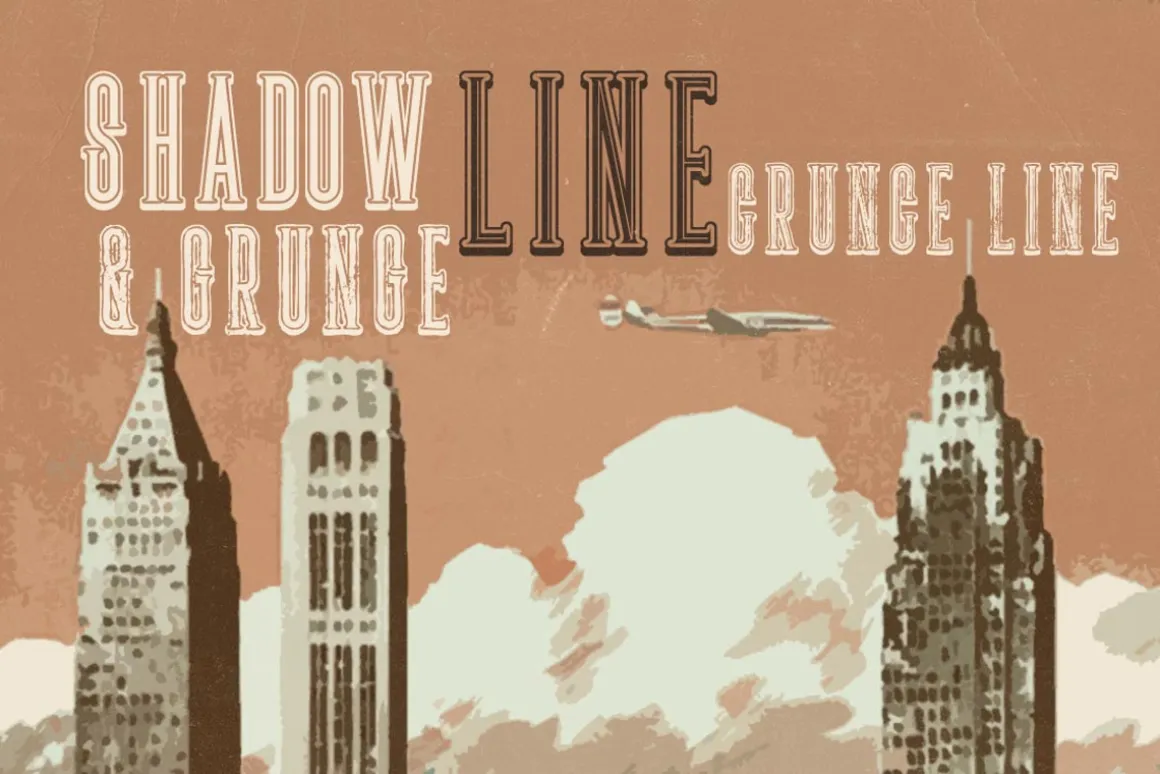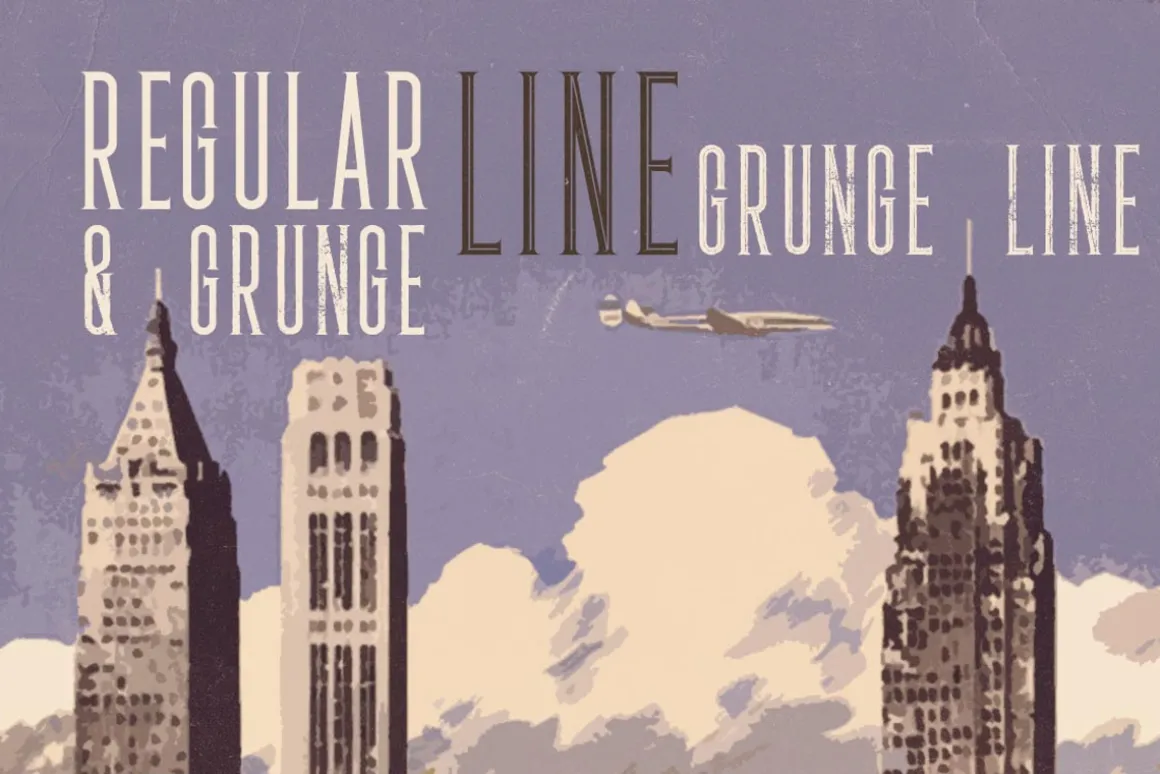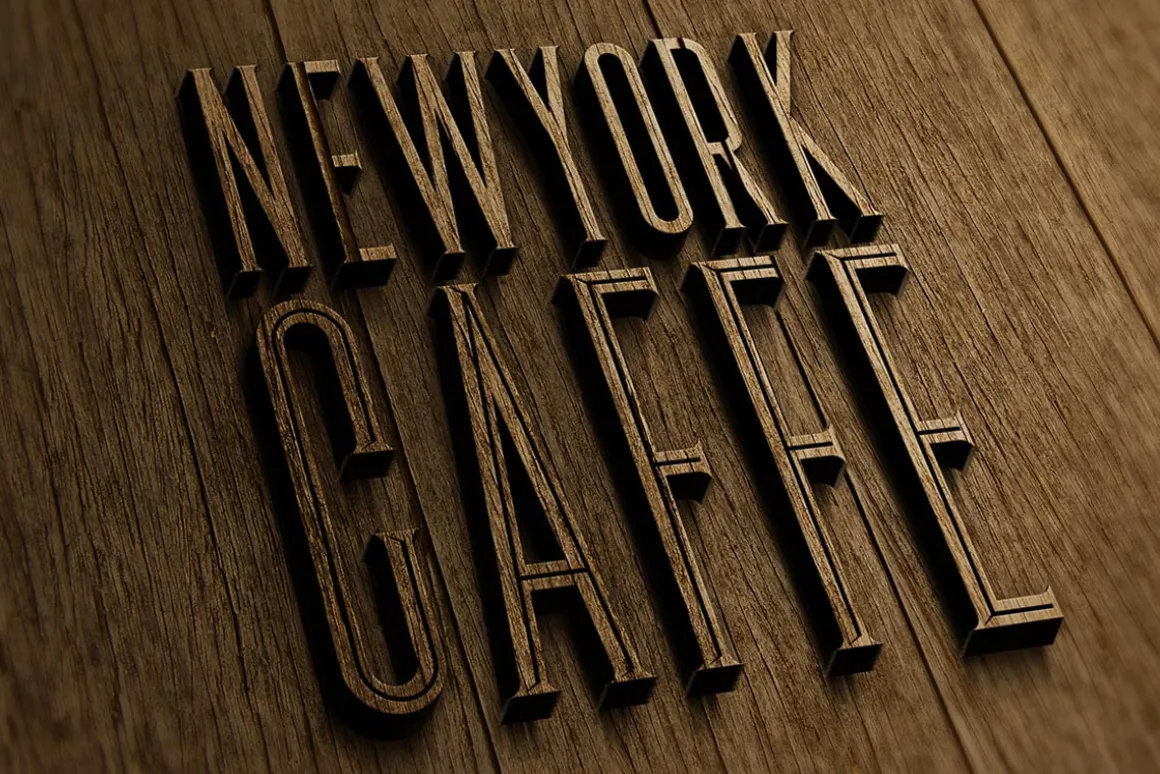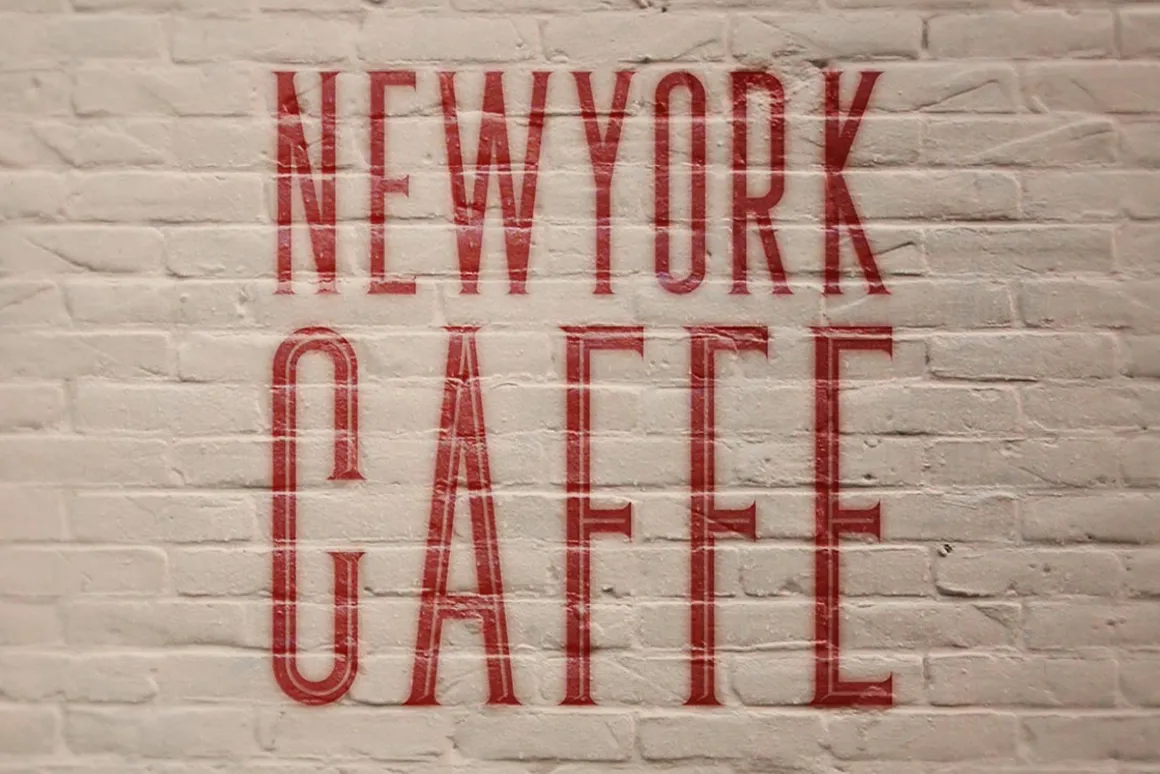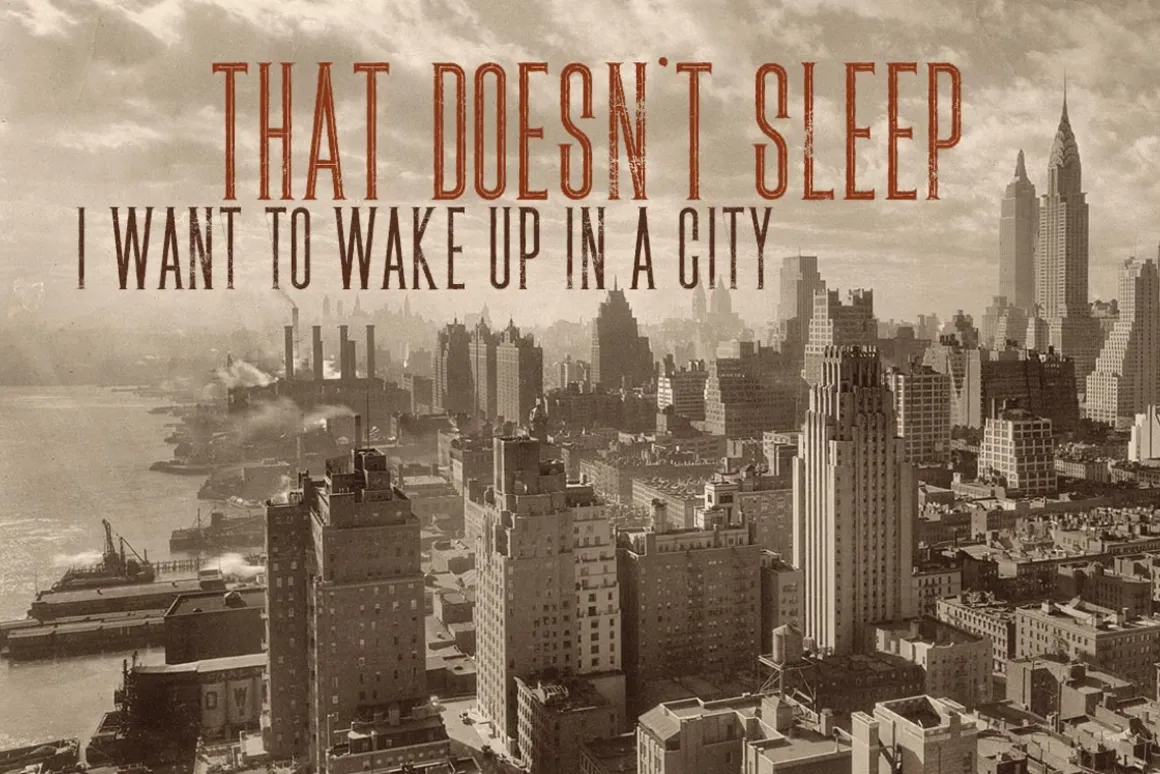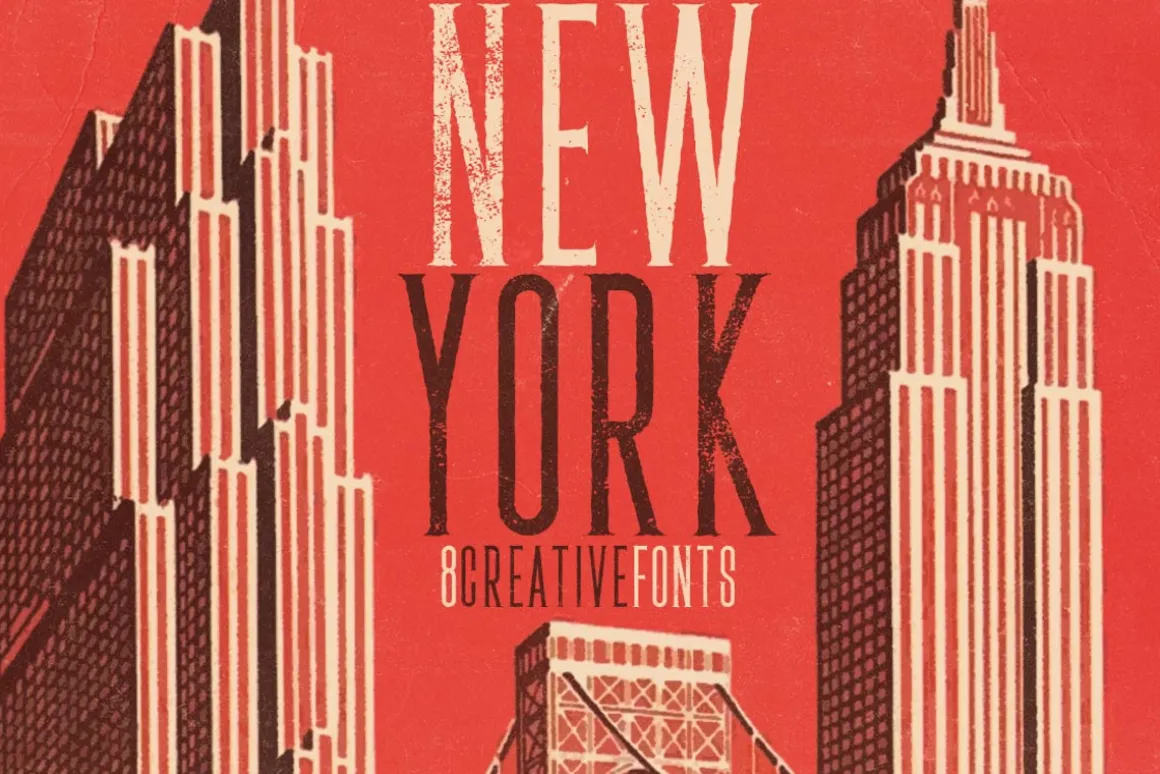
Vintage style display serif font for your new projects. Great for your retro/vintage projects!
- 8 font files (otf & ttf) – regular& grunge, line & line grunge, shadow & shadow grunge, shadow line & shadow line grunge